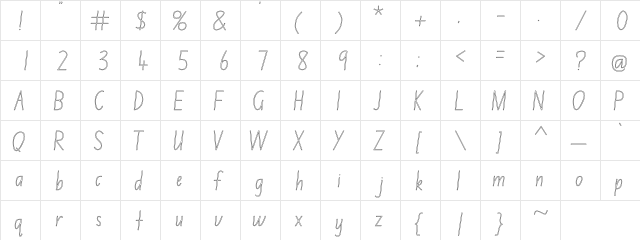
NSW ACT Outline Regular
| Designer | DaShiz |
Design Context for NSW ACT Outline Typeface
NSW ACT Outline brings ornamental detail and strong personality to headlines and identities, where visual impact matters more than quiet functionality.